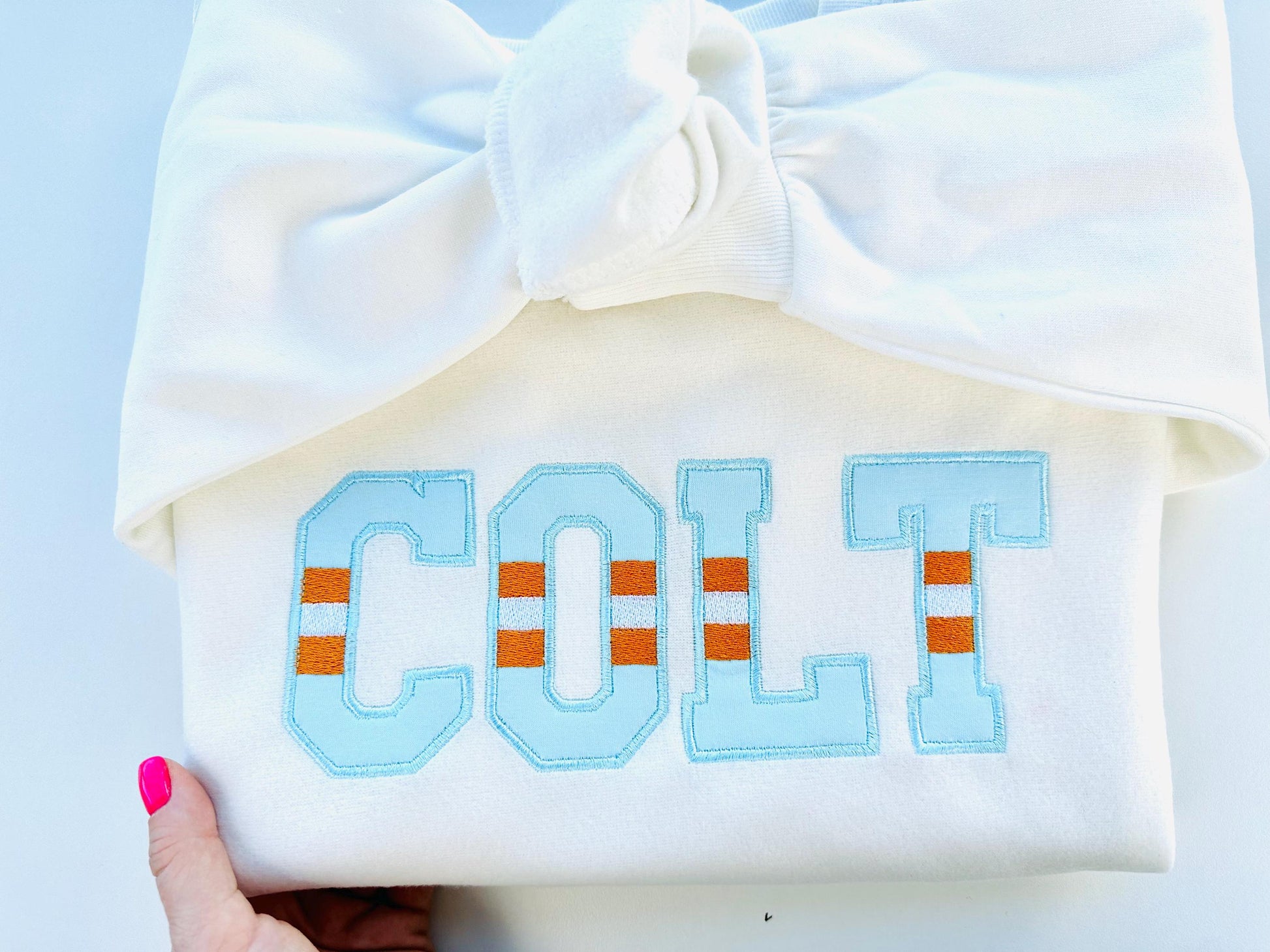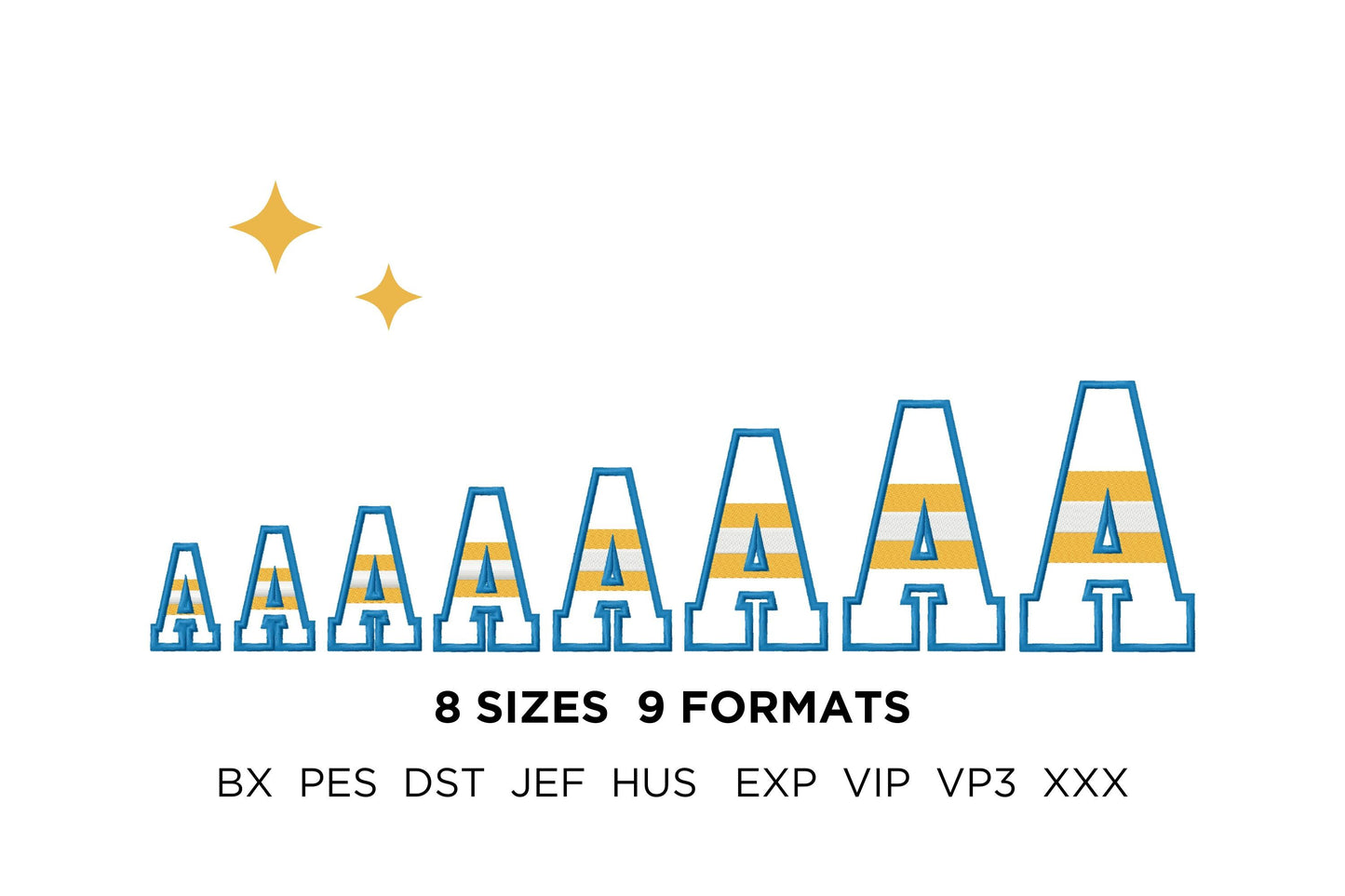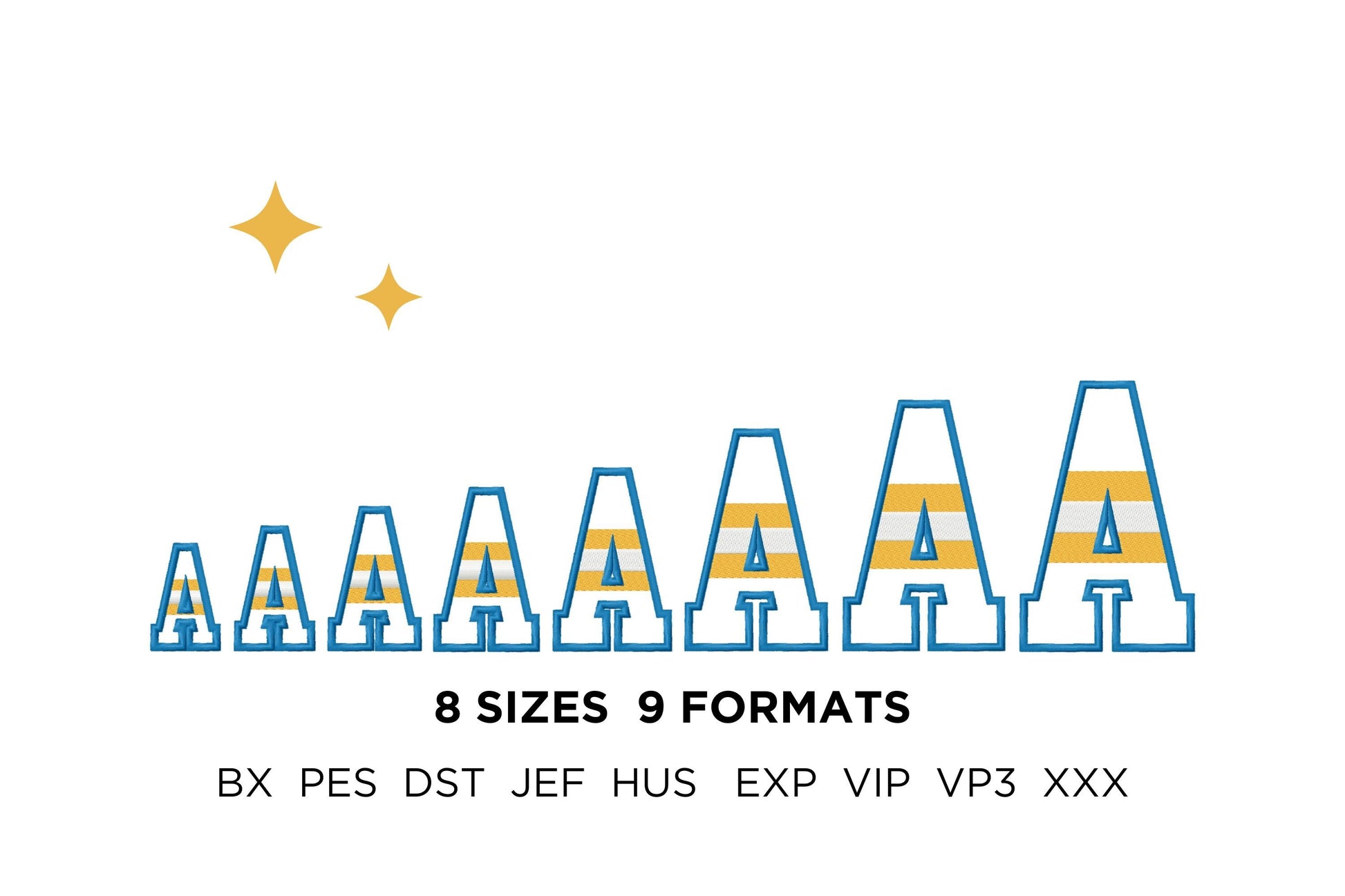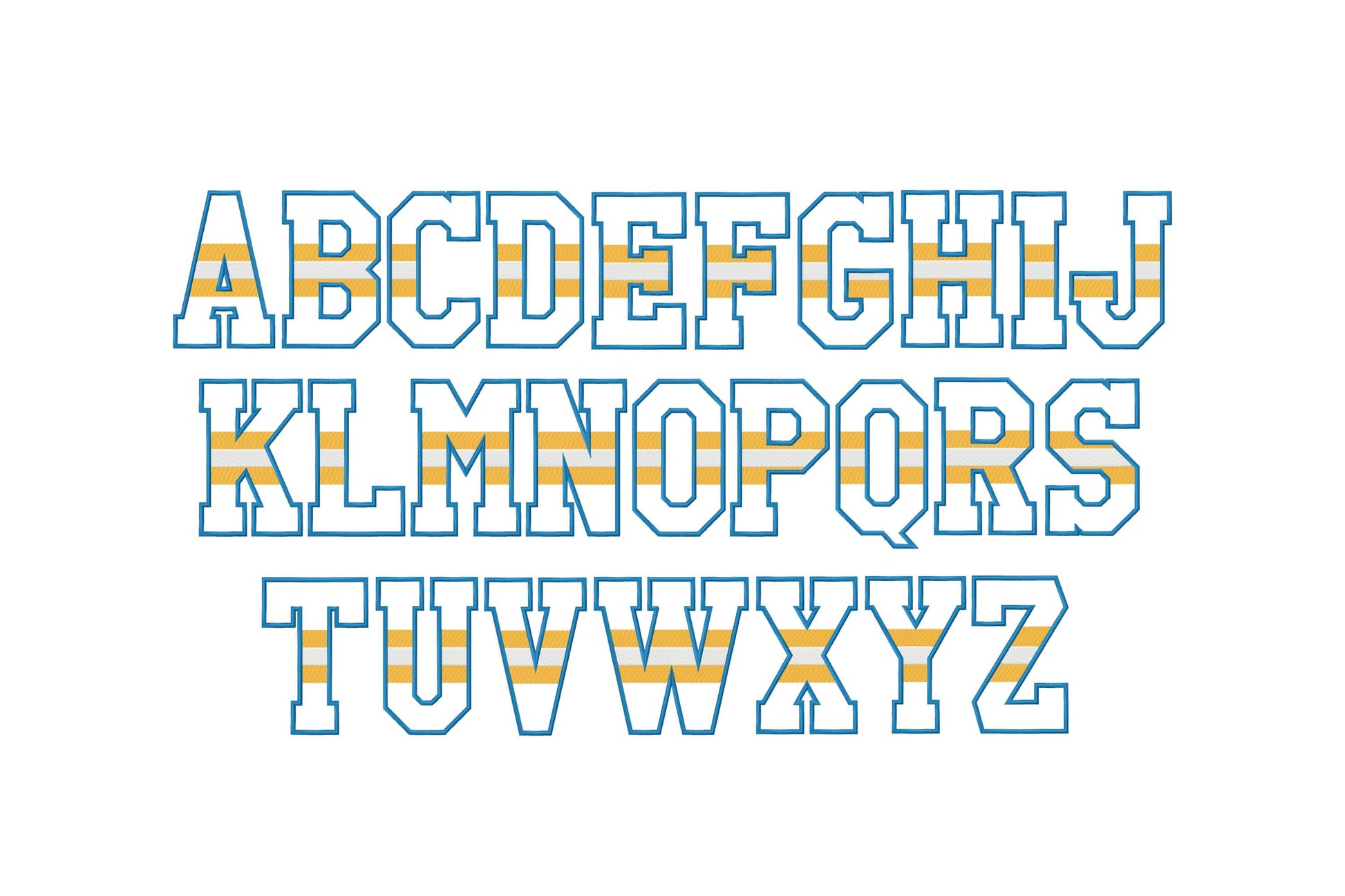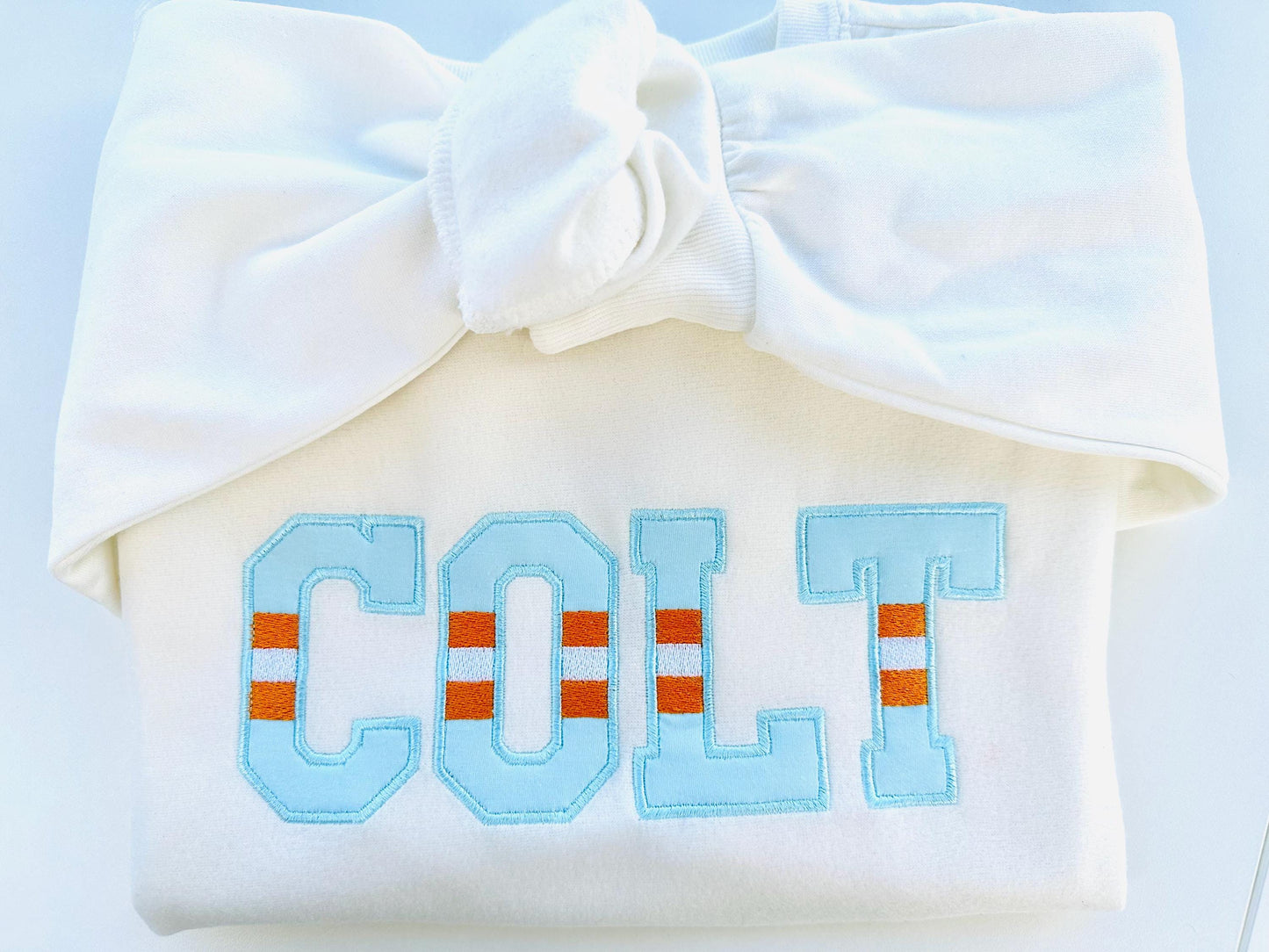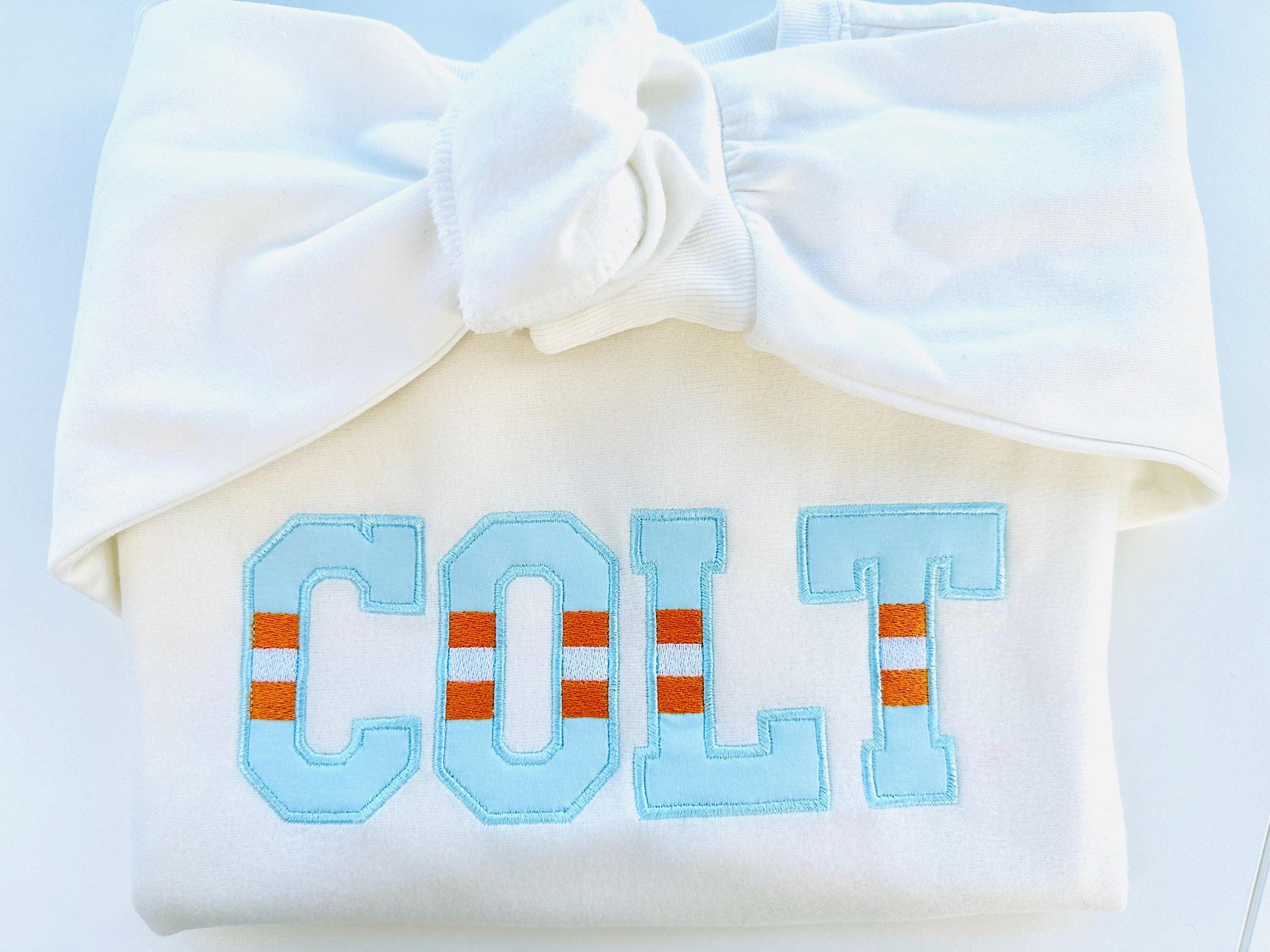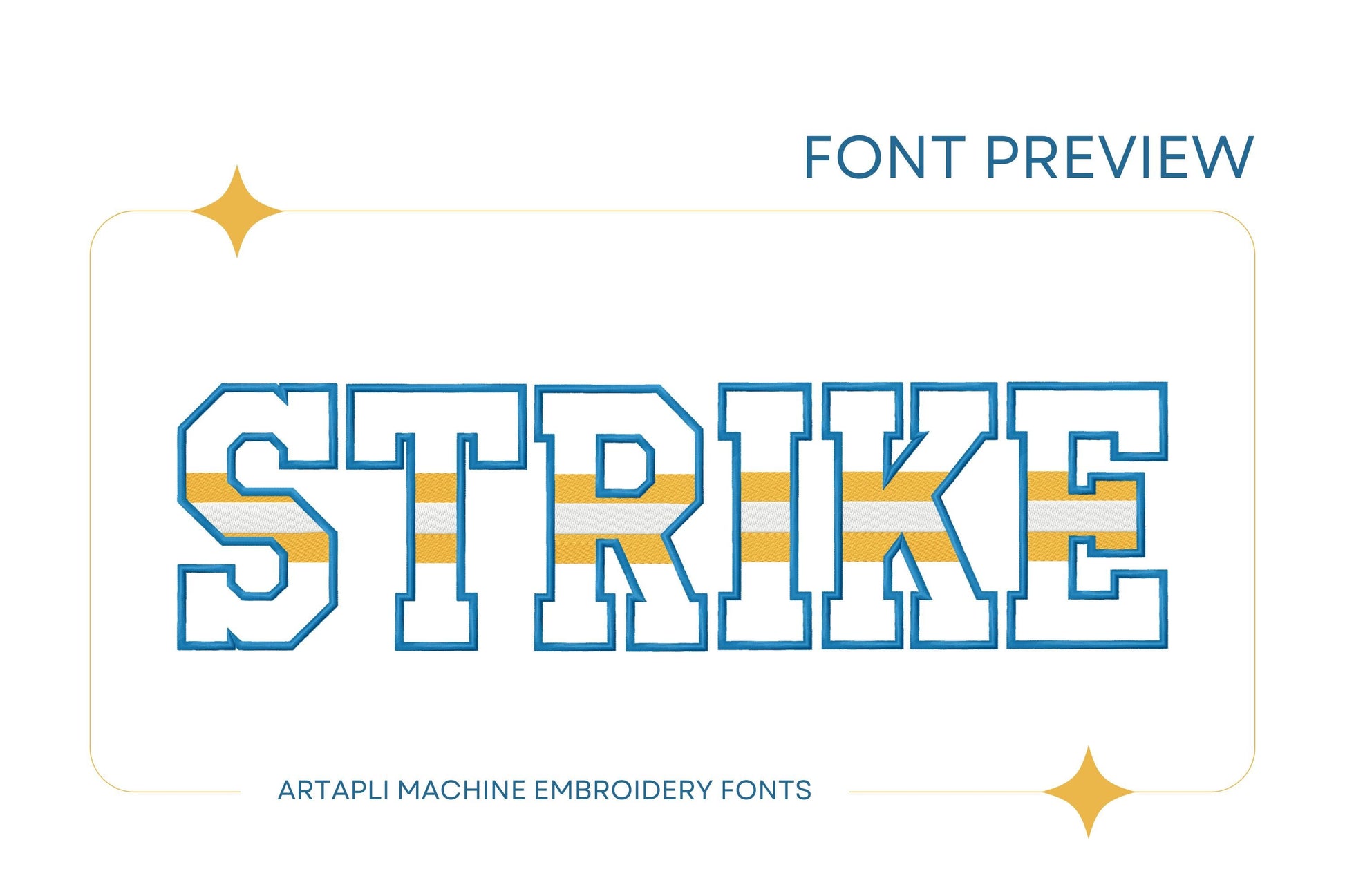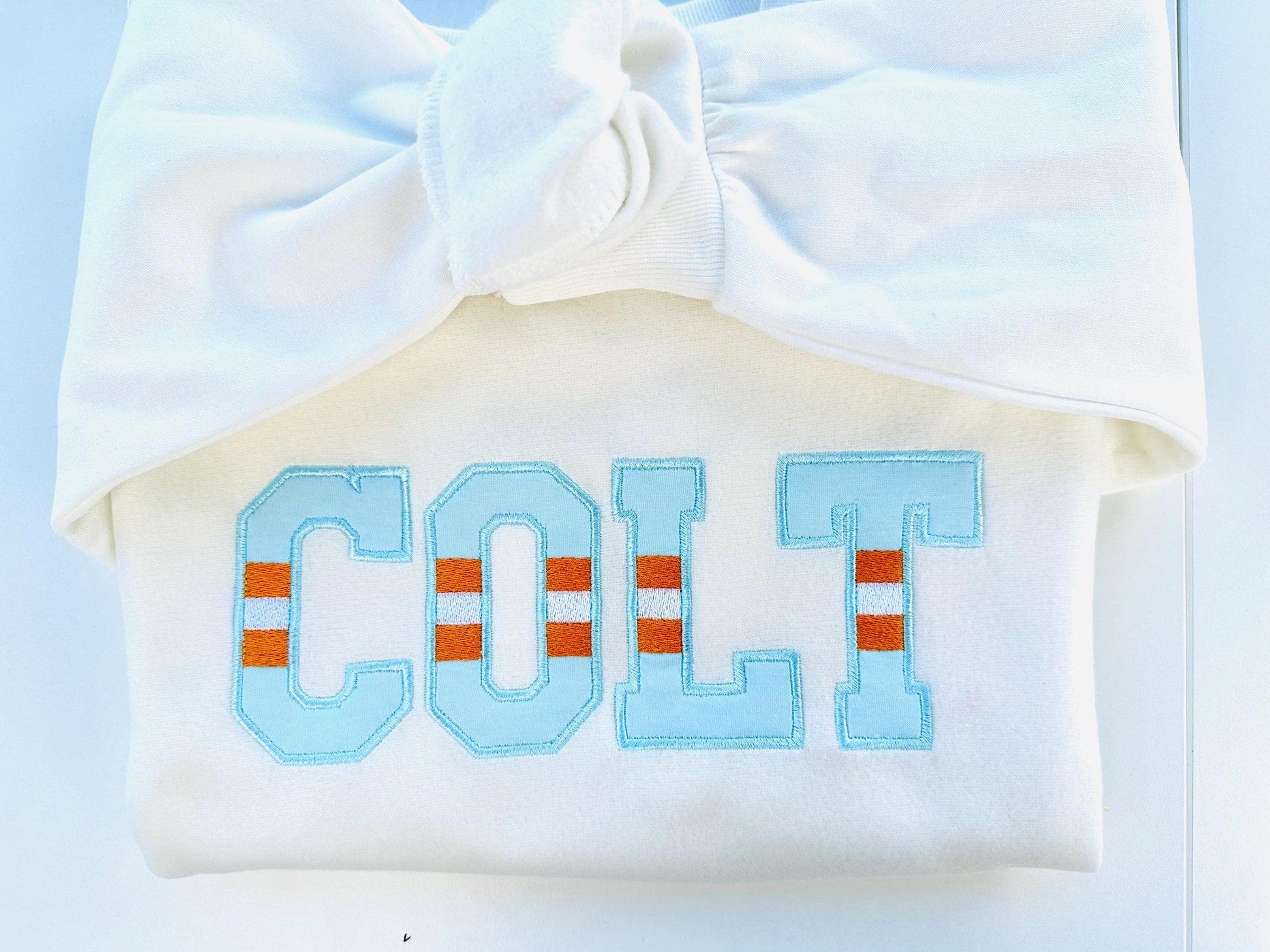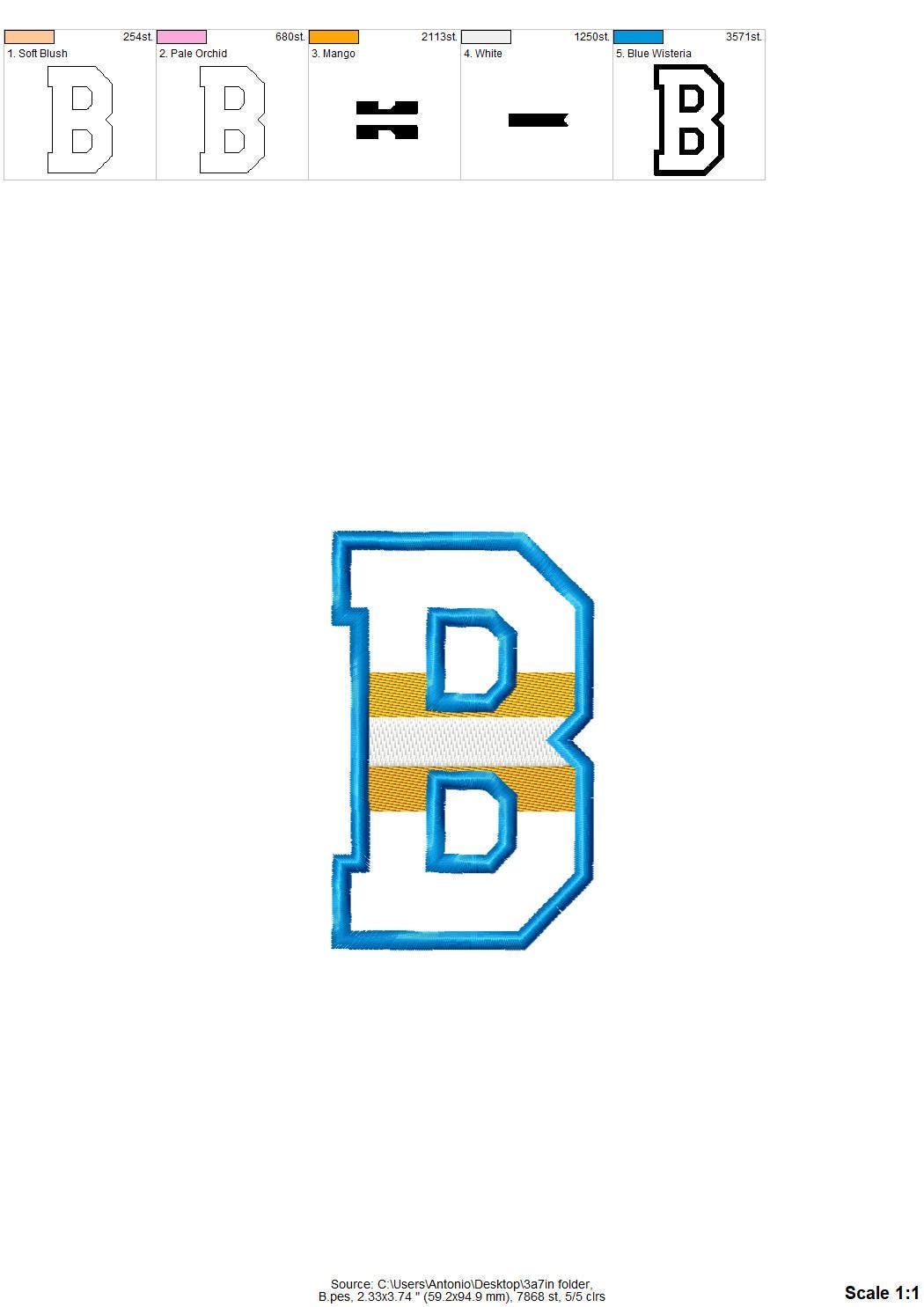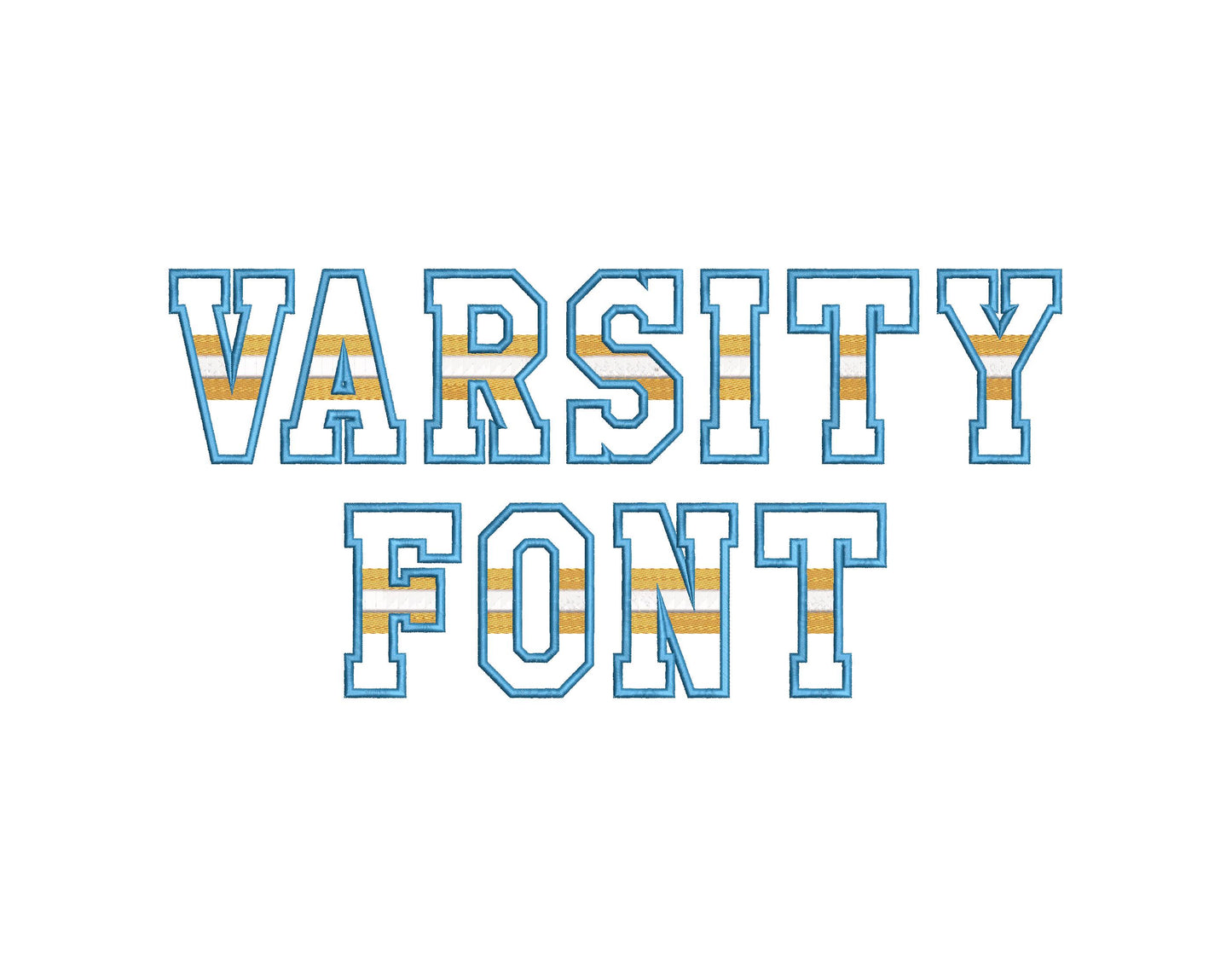
Or click to open the linkA striped varsity sports applique font. Made for team shirts, jerseys, hoodies and school spirit wear.
Uppercase letters A to Z. Eight sizes: 2.2, 2.6, 3, 3.3, 3.7, 4.5, 5 and 5.5 inches. Applique with fill stitch stripes and a satin outline.